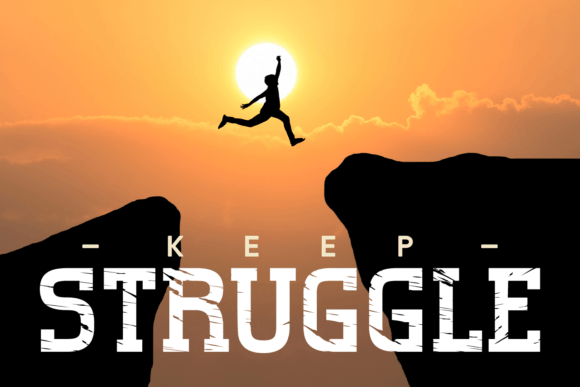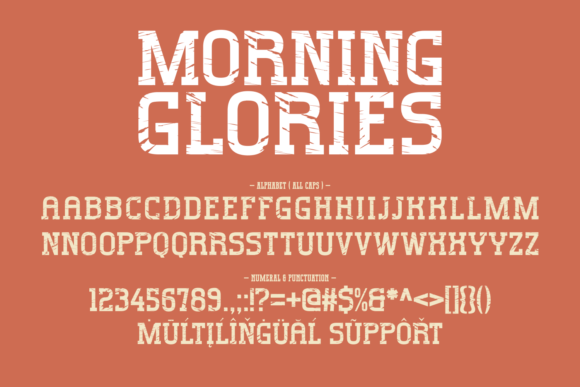
Introduction to Morning Glories Font Font
Fonts play a crucial role in design, and the Morning Glories Font font is a typeface that brings both character and versatility to any project. Whether you’re working on a branding project, a website, or a print design, the Morning Glories Font font offers a unique style that can elevate your work.
Morning Glories is a vintage and stylish slab-serif font that is the perfect choice for adding a retro feel to your designs.
Its bold and blocky letterforms add a touch of class and sophistication, making it a great choice for logos, headlines, and more .
Key Features of Morning Glories Font Font
Why Choose Morning Glories Font Font?
The Morning Glories Font font is more than just a typeface – it’s a design tool that helps you communicate your message with style and clarity. Its unique character set and versatile design make it suitable for a wide range of applications, from elegant invitations to bold headlines.
With its carefully crafted letterforms and balanced proportions, the Morning Glories Font font ensures readability and visual appeal across all mediums.
What makes Morning Glories Font font special?
The Morning Glories Font font stands out with its unique design, exceptional readability, and versatility across various design applications.